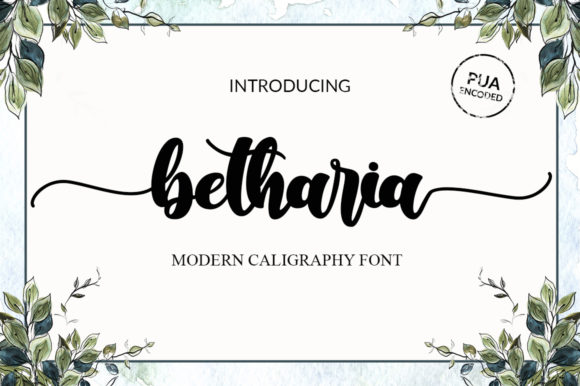
Be swept away by the charm of Betharia Font, the epitome of modern elegance and cuteness. Its authentic feel is captivating, inviting you to create stunning visual masterpieces. Envision designing breathtaking wedding invitations that exude romance and sophistication, or crafting beautiful stationary art that radiates timeless charm. Betharia Font elevates your social media presence with eye-catching posts that command attention. From heartfelt letters to adorable greeting cards, this font transforms your words into works of art.
Betharia Font's PUA encoding grants you access to a treasure trove of alternate glyphs, empowering you to unleash your creativity like never before. Explore a world of possibilities, where imagination meets artistry. Each glyph is meticulously crafted to add a touch of whimsy and delight to your designs. Whether you're a seasoned designer or just starting, Betharia Font empowers you to create captivating visuals that leave a lasting impression.
Betharia Font is the perfect choice for those seeking a touch of magic and whimsy. Its versatility allows you to effortlessly evoke a sense of joy and playfulness in your designs. Its effortless flow and graceful curves create a visual symphony that captivates and enchants. Whether you're creating logos, posters, or any other design project, Betharia Font adds a touch of enchantment that sets your work apart.
Don't settle for ordinary fonts. Embrace the captivating charm of Betharia Font and embark on a creative journey filled with endless possibilities. With its PUA-encoded alternate glyphs and modern script style, Betharia Font is the key to unlocking a world of visual artistry. Let your imagination soar and create designs that ignite hearts and capture the attention of all who lay eyes upon them. Betharia Font awaits, ready to transform your creative visions into unforgettable realities.